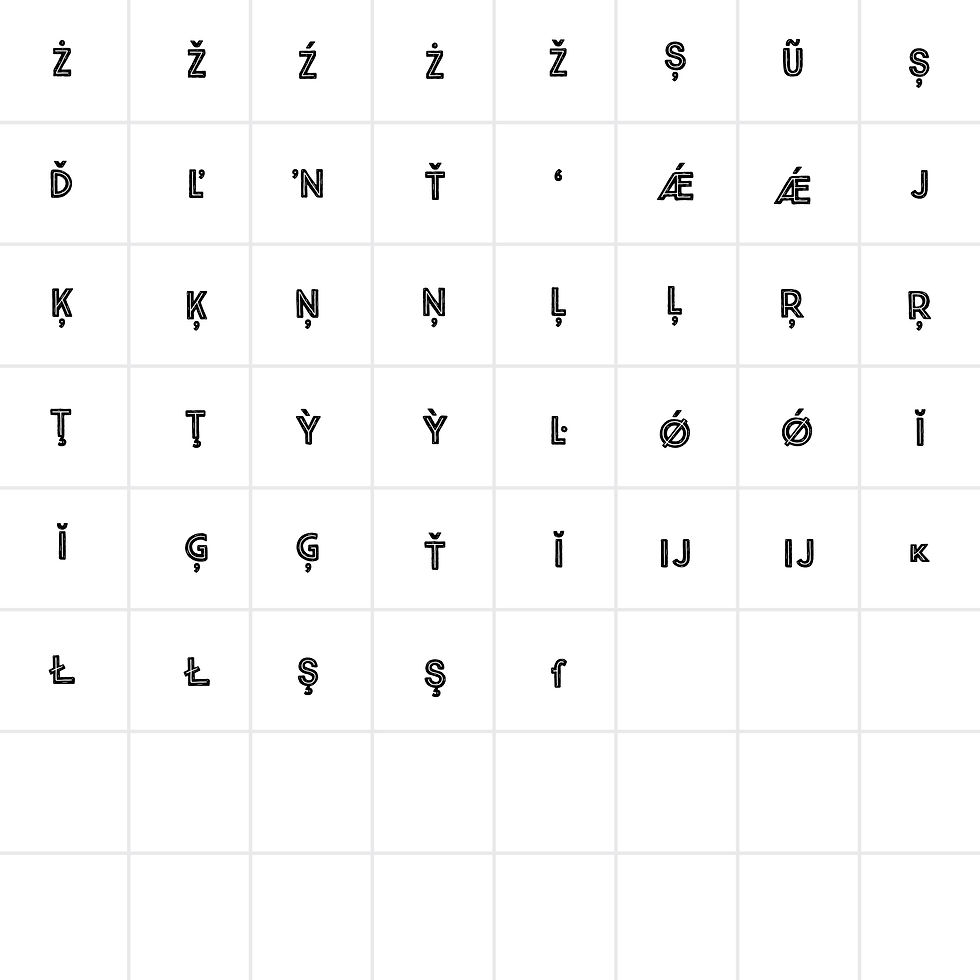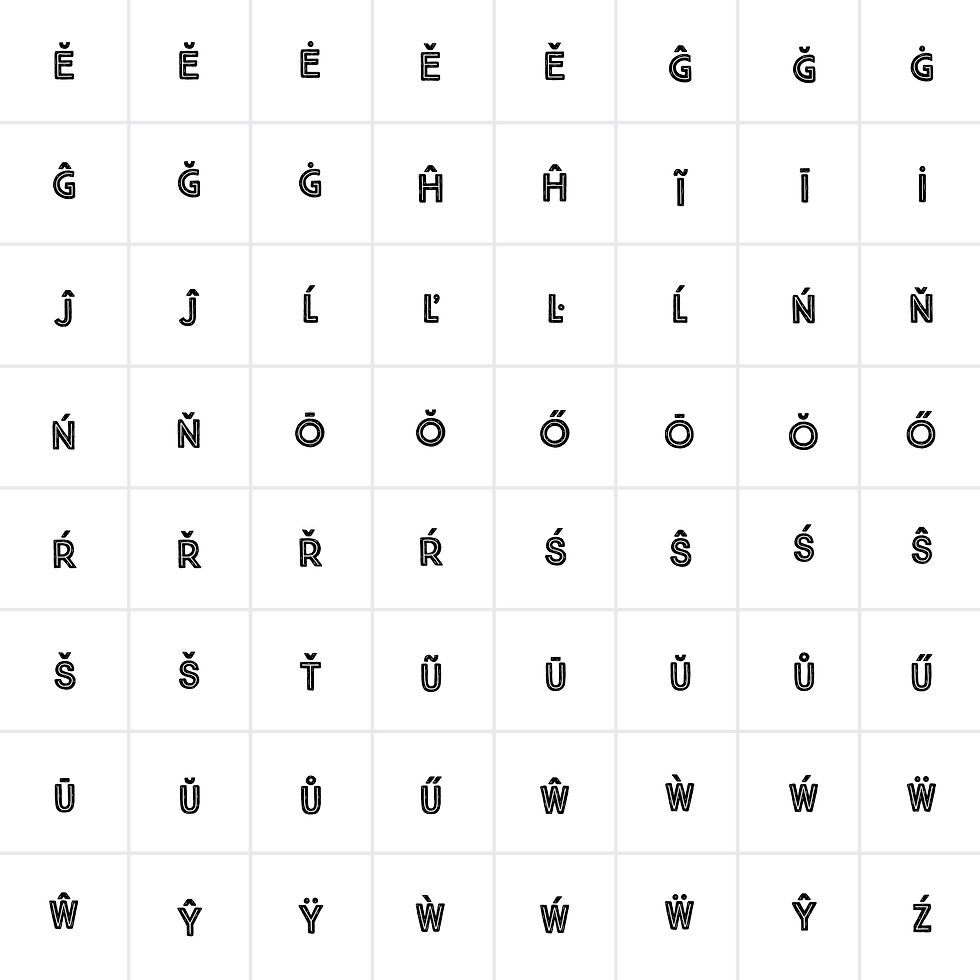
TRUE NORTH ROUGH INLINE BLACK FONT is a sans serif vintage inspired headline font with alternate capitals. This font has a rough handrawn texture.
True North Rough Inline Black Font